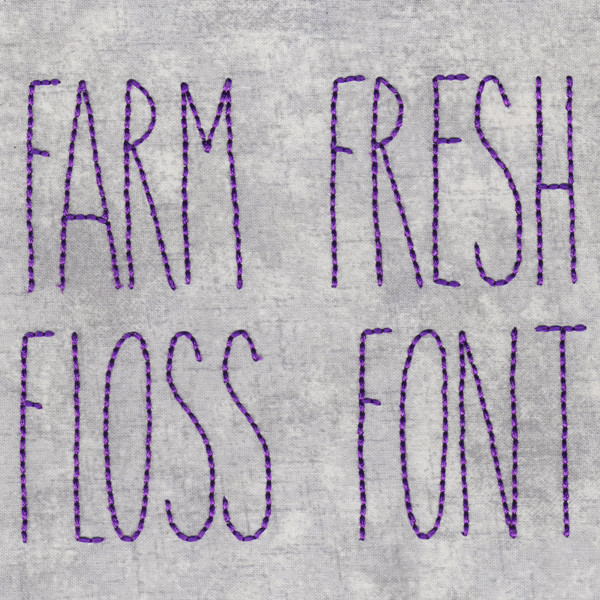
783 Farm Fresh Floss Font
783 Farm Fresh Floss Font comes in 0.5", 1", 1.5", 2", 2.5", 3", 3.5", 4", 4.5", 5", 5.5" & 6" heights. This font is capital letters only (no lowercase, numbers or punctuation marks). All sizes are finished in Floss Stitch.